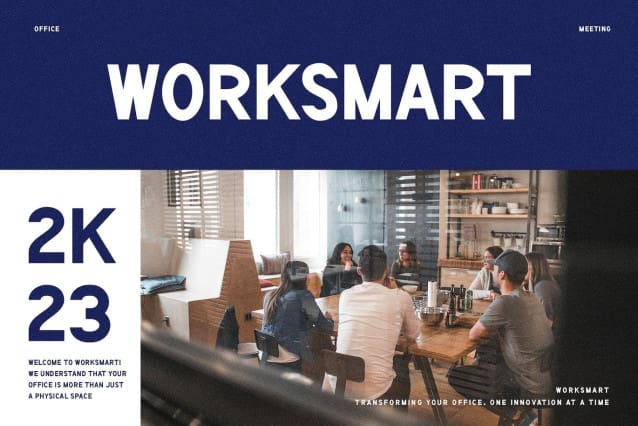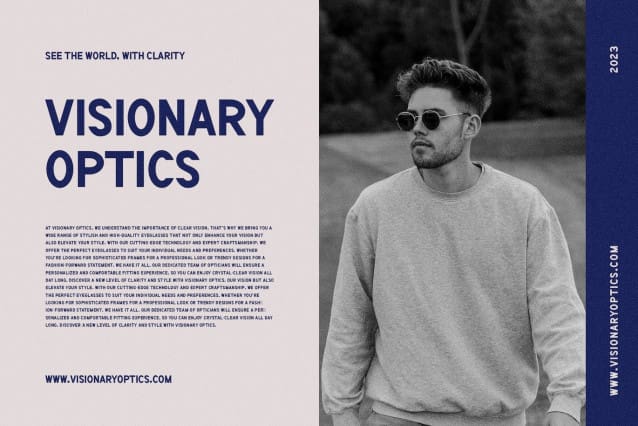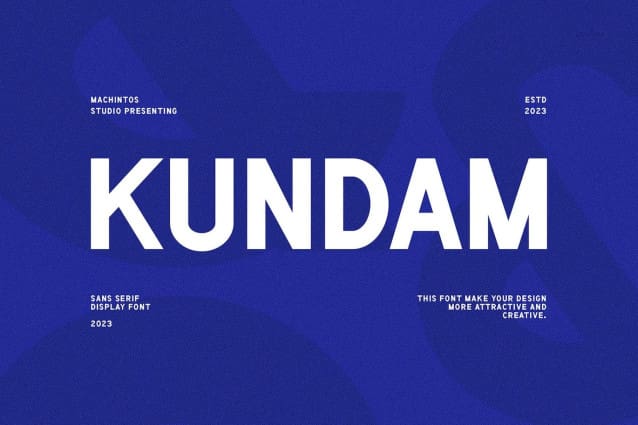
Kundam Font
Kundam Font, modern sans serif font with elegant style this is perfect for branding, logos, invitation, magazines, product packaging and more.